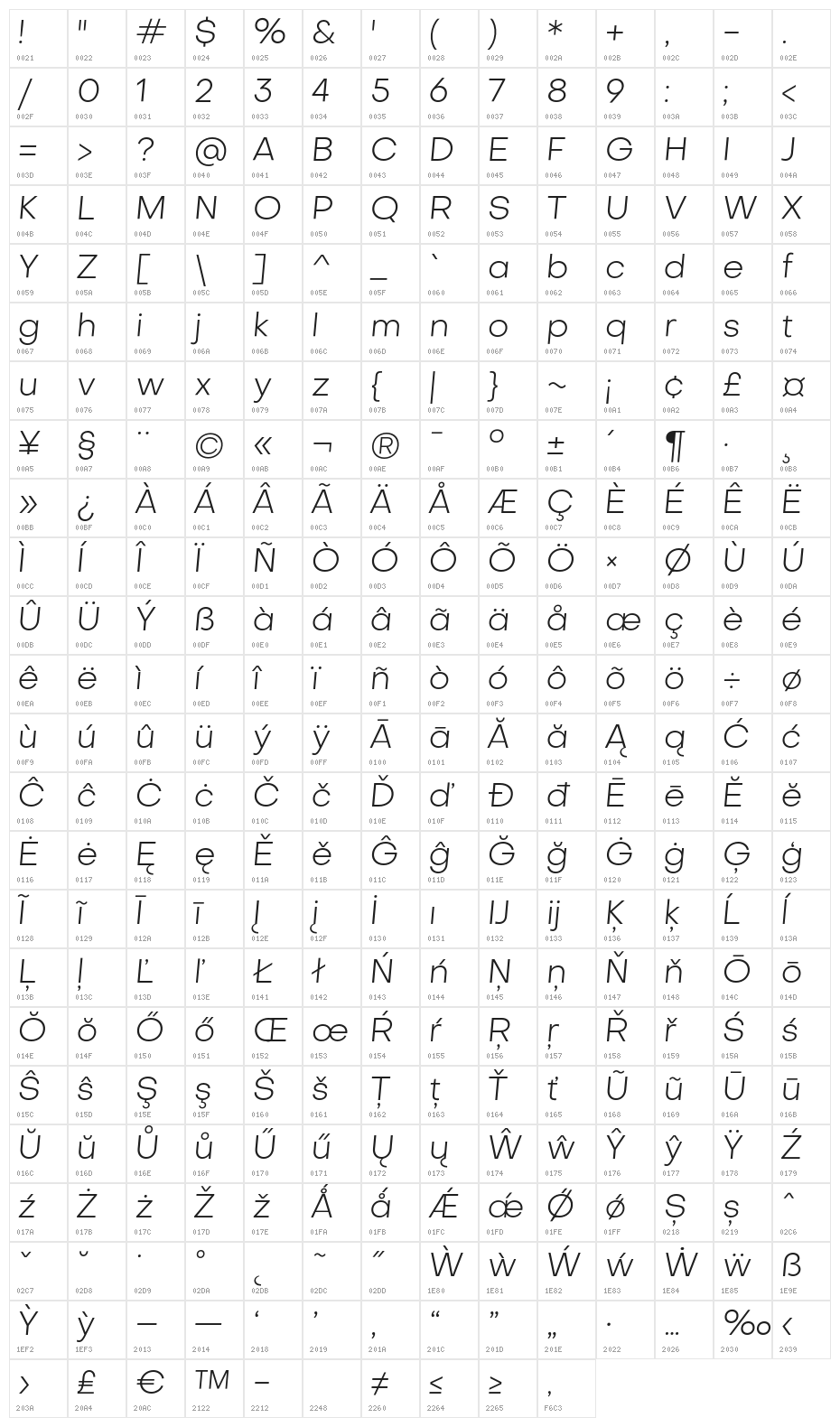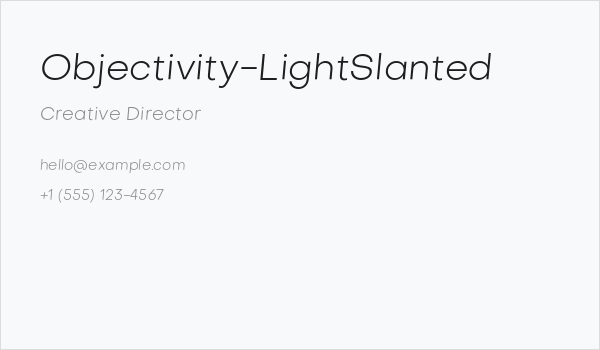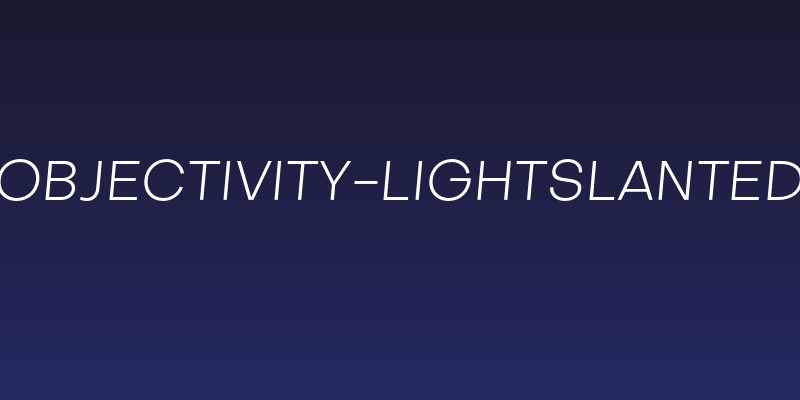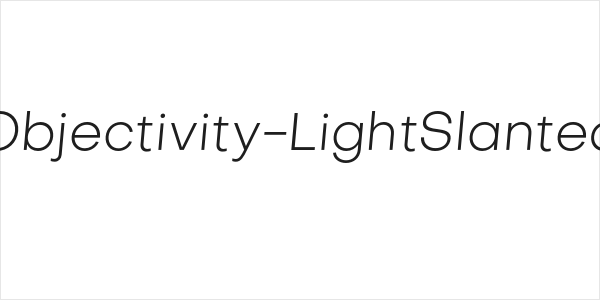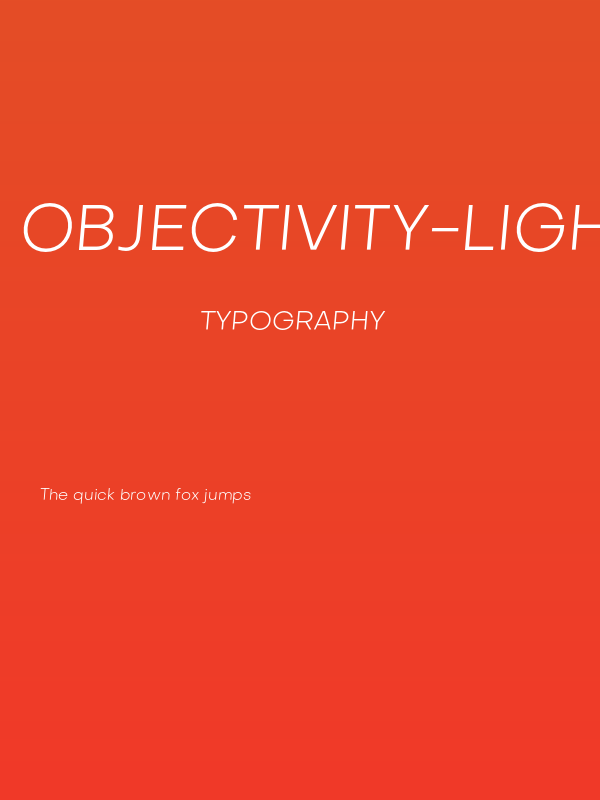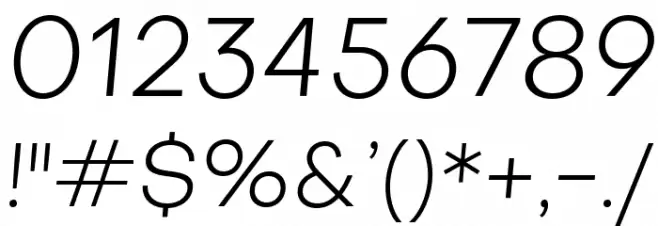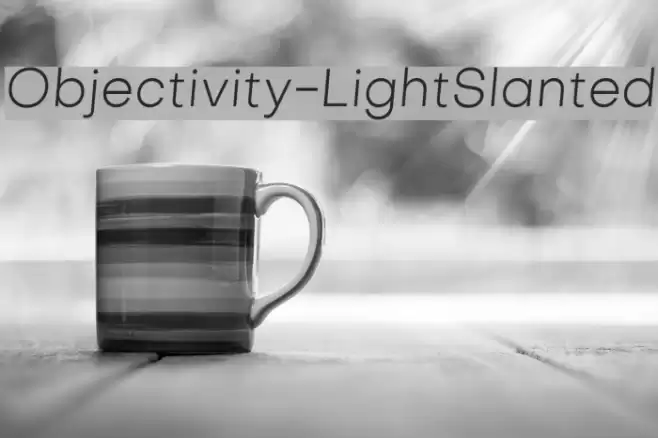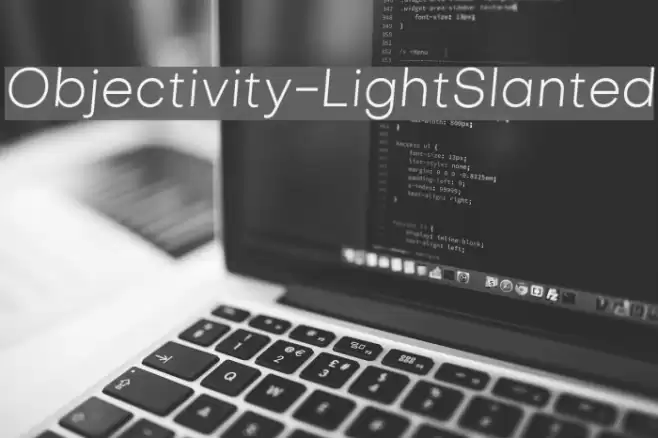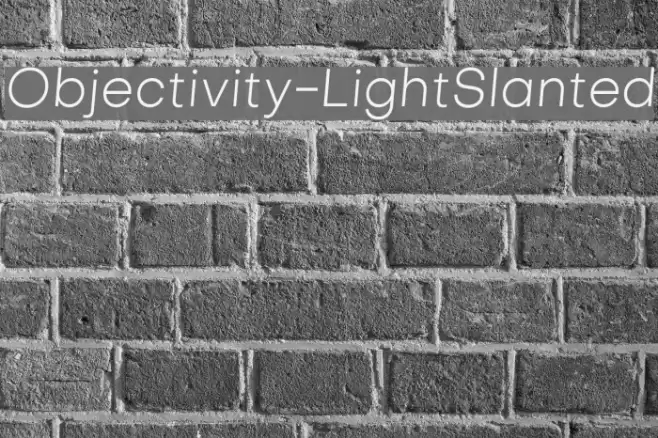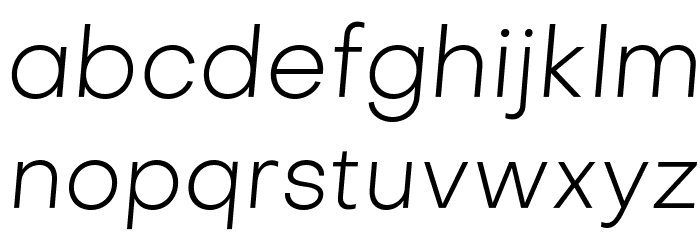
Objectivity-LightSlanted Font
Objectivity-LightSlanted Description
This font features a sleek, modern design with a slight slant, giving it a dynamic and forward-moving appearance. The characters are clean and minimalistic, with a uniform stroke width that maintains consistency throughout. The uppercase and lowercase letters are well-proportioned, and the numerals are clear and easy to read. Special characters are included, maintaining the same stylistic integrity. The overall look is contemporary, making it suitable for a variety of digital and print applications.
| Use Case | Headlines, Body text, Logos |
| Proposed Projects | Ideal for branding, digital interfaces, modern print media, and advertising campaigns. |